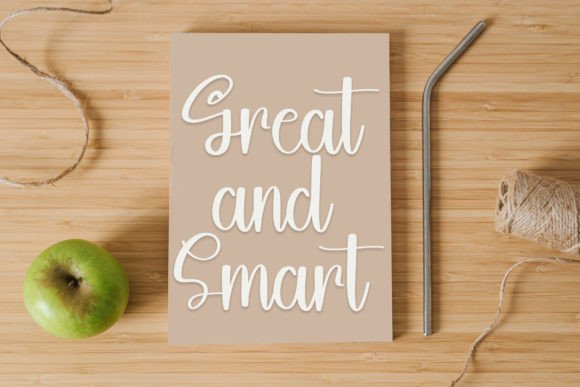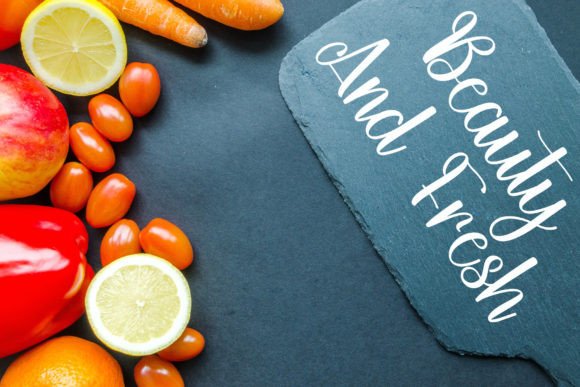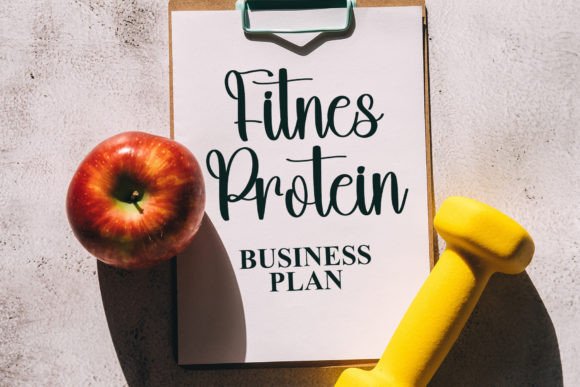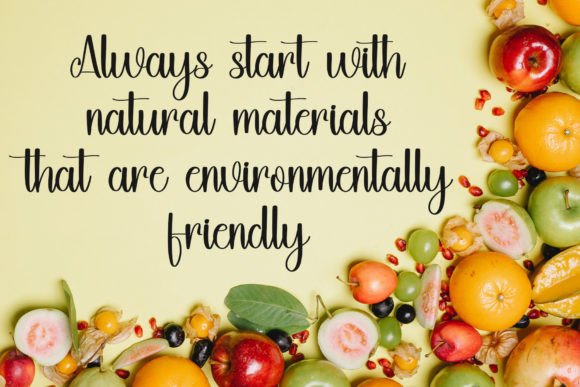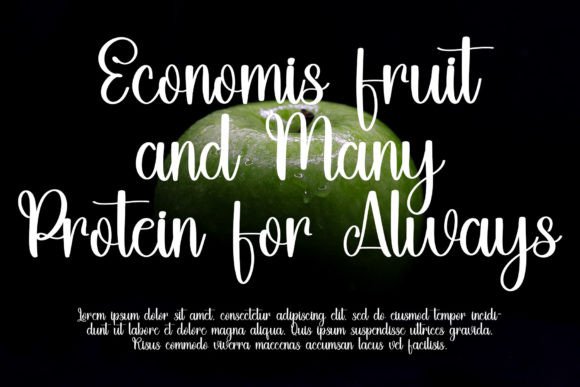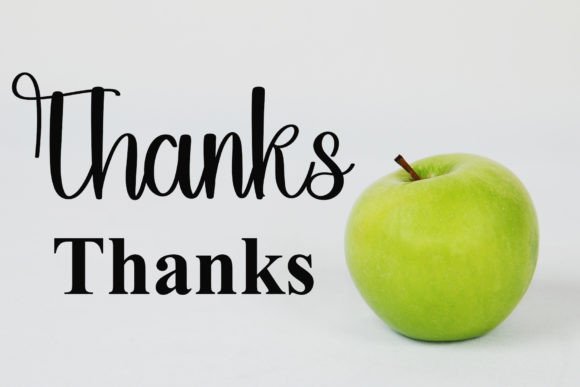
The Apple Font: A Timeless Classic for Modern Designs
Have you ever been in the middle of a design project, and suddenly, you’re stuck on finding the perfect font? I recall a particularly frustrating experience while working on a wedding invitation design. My client wanted a font that exuded elegance and sophistication, but I just couldn’t seem to find the right fit. That’s when I stumbled upon the Apple Font, and it completely transformed my design. In this article, we’ll dive into the world of Apple Font, exploring its features, uses, and alternatives.
A Personal Review: What I Love About Apple Font
Apple Font has become a staple in my design toolkit, and for good reason. Here are some of the things I love about it:
- ✨ Contemporary atmosphere: Apple Font boasts a modern, fresh feel that’s perfect for designs that require a touch of sophistication.
- ✅ Impeccable form: The font’s classic calligraphy inspiration shines through in its balanced and varied letterforms.
- 💫 Versatility: Apple Font is suitable for a wide range of design projects, from wedding invitations to branding materials.
While Apple Font is an excellent choice, it’s not without its quirks:
- 🤔 Limited availability: Apple Font might not be as widely available as other fonts, but it’s worth searching for.
- ⚠️ OpenType feature support: Some platforms may not support the font’s advanced OpenType features, which can limit its potential.
The Designer Inspiration Behind Apple Font
Apple Font was inspired by the timeless classic calligraphy of the past. Its designer sought to create a font that would bring a touch of elegance and sophistication to modern designs. By combining traditional calligraphy techniques with modern digital tools, the designer created a truly unique and versatile font.
| Font Name | Apple Font |
| What is Apple Font? | Apple Font is a stylish handwritten font with a contemporary atmosphere and impeccable form, inspired by timeless classic calligraphy. |
| Does Apple Font support OpenType features? | Yes, Apple Font supports OpenType features, including ligatures and stylistic alternates. |